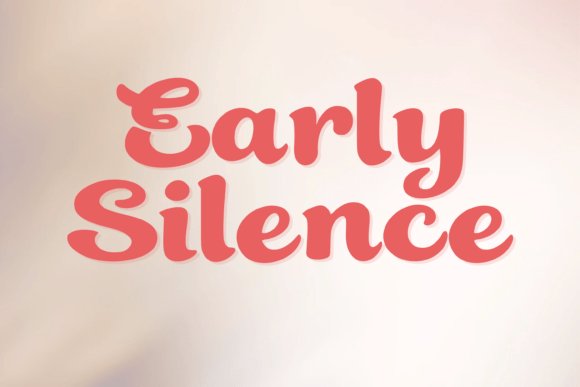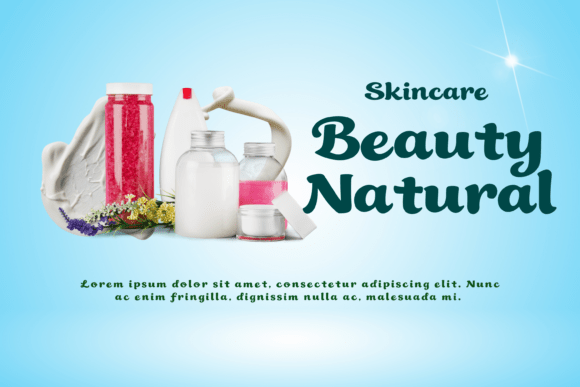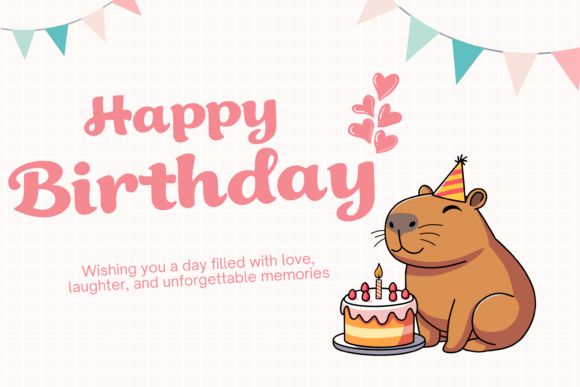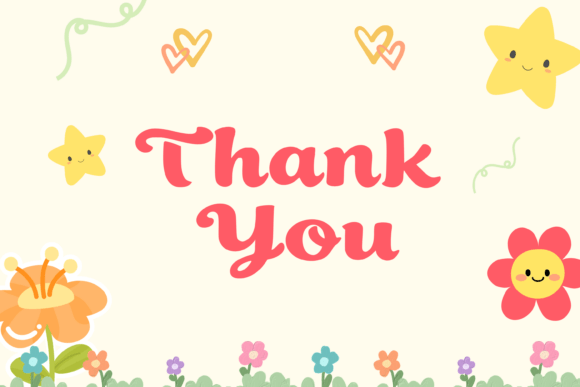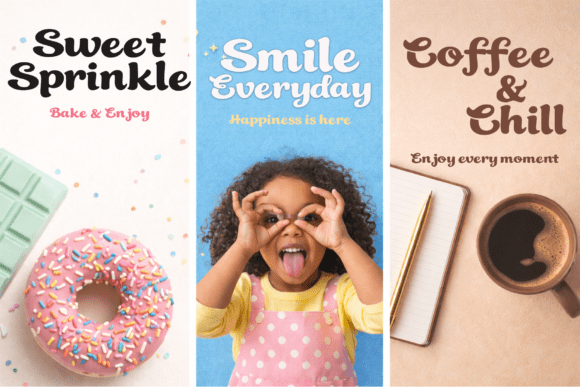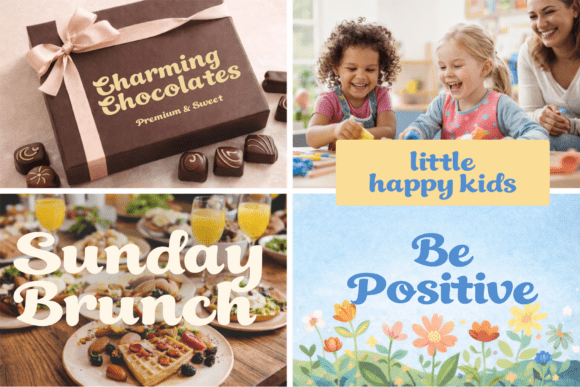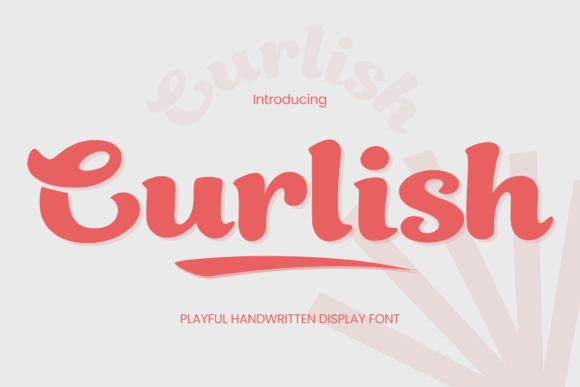
Discover the Whimsical Charm of Curlish Font: Elevate Your Designs with Vibrancy and Fun
In the realm of typography, few fonts manage to capture the essence of playfulness and elegance simultaneously. Curlish, a vibrant handwritten display font, is one such gem that pulsates with lively energy, making it an ideal choice for creative projects seeking a dash of whimsical charm. With its forward and flowing lettering, Curlish infuses a bright, uplifting tone that reflects its creator’s true and original handwriting style. This distinctive characteristic not only adds a layer of crisp, desirable legibility but also gives your designs a pleasing ambiance that captivates viewers.
The Unique Appeal of Curlish
Curlish’s unique appeal lies in its ability to demand viewer attention without overshadowing the rest of your artistic ensemble. Its well-proportioned dimensions ensure that, whether it’s showcased on digital displays or printed material, Curlish invariably enhances your visual content with an appealingly lovely aesthetic. This versatility makes Curlish the perfect companion for modern, creative projects that require a font which can seamlessly transition across various mediums.
Characteristics of Curlish Font
- Vibrant and Handwritten: Curlish boasts a vibrant, handwritten style that exudes warmth and personality, making your designs instantly more relatable and engaging.
- Forward and Flowing Lettering: The font’s flowing lettering adds a dynamic, fluid feel to your text, creating a sense of movement and energy.
- Bright and Uplifting Tone: Curlish’s bright tone ensures that your designs are always perceived as uplifting and positive, perfect for brands and projects aiming to convey happiness and enthusiasm.
- Crisp Legibility: Despite its playful nature, Curlish maintains a high level of legibility, ensuring that your message is always communicated clearly and effectively.
- Versatile and Adaptable: Whether used in digital media, print materials, or any other creative project, Curlish adapts seamlessly, always enhancing the visual content with its unique charm.
Why Choose Curlish for Your Designs?
Curlish is more than just a font; it’s a design element that can transform your creative projects. Here are a few reasons why Curlish should be your go-to choice:
- Universal Charm: Curlish has a universally charming quality that can appeal to a wide audience, making it perfect for projects aimed at diverse demographics.
- Enhances Visual Content: The aesthetic appeal of Curlish can elevate your visual content, making it more engaging and memorable.
- Infuses Vibrancy and Fun: With Curlish, you can easily inject vibrancy and fun into your designs, setting them apart in a sea of more mundane typography.
- Supports Creative Freedom: The unique style of Curlish encourages creative freedom, allowing designers to experiment with various design elements without the constraints of more traditional fonts.
Using Curlish in Your Projects
Incorporating Curlish into your designs is straightforward, thanks to its compatibility with various design software and platforms. Whether you’re working on:
- Digital Media: Enhance your website, social media posts, and digital advertisements with a touch of whimsy and elegance.
- Print Materials: Make your brochures, posters, and business cards stand out with a font that’s both eye-catching and legible.
- Branding and Logos: Use Curlish to create a memorable brand identity that reflects a playful, yet sophisticated image.
The versatility of Curlish ensures that it can be effectively used across a wide range of applications, making it a valuable addition to any designer’s toolkit.
| Font Name | Curlish Font |
| Author | cocodesign |
Curlish is a vibrant handwritten display font that can add a unique touch of whimsical charm to your designs. Its forward and flowing lettering, combined with a bright and uplifting tone, makes it an excellent choice for creative projects looking to stand out. With its well-proportioned dimensions and crisp legibility, Curlish enhances your visual content across various mediums, making it universally charming and fun. By incorporating Curlish into your design work, you can easily incite vibrancy and ensure that every creation leaves a lasting impression on your audience.
Experience the enchantment of Curlish and discover how this delightful font can transform your designs, making them more engaging, memorable, and universally charming.